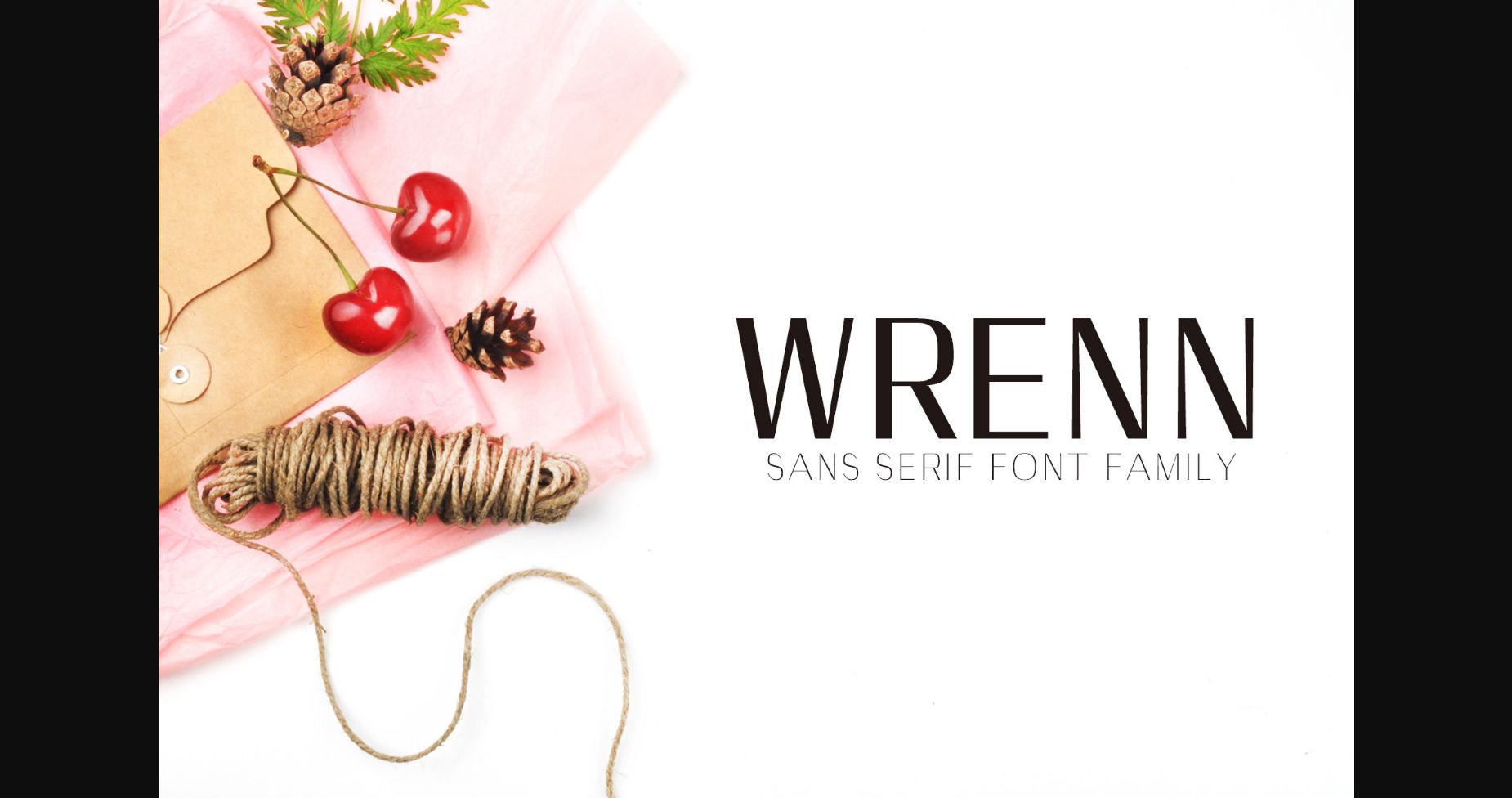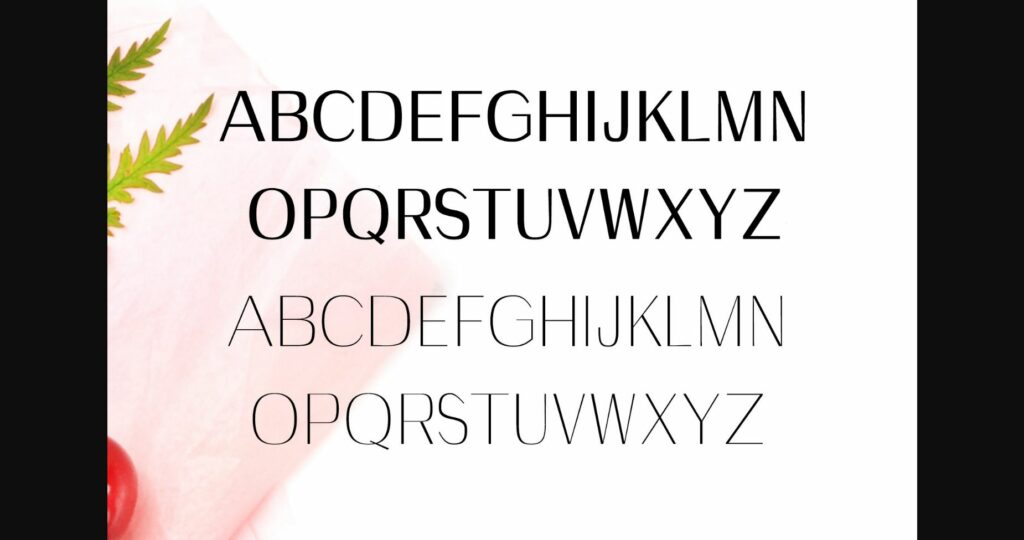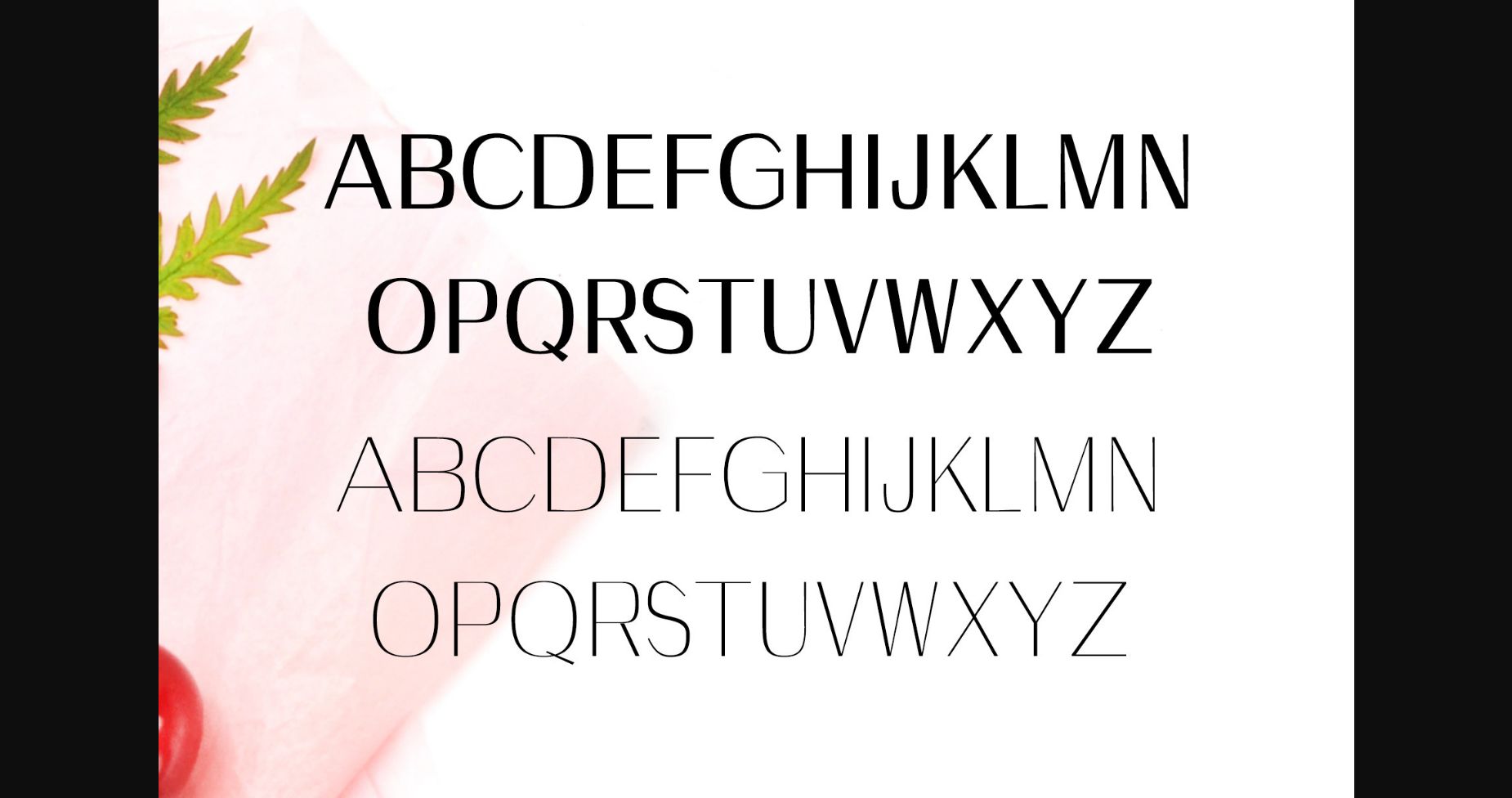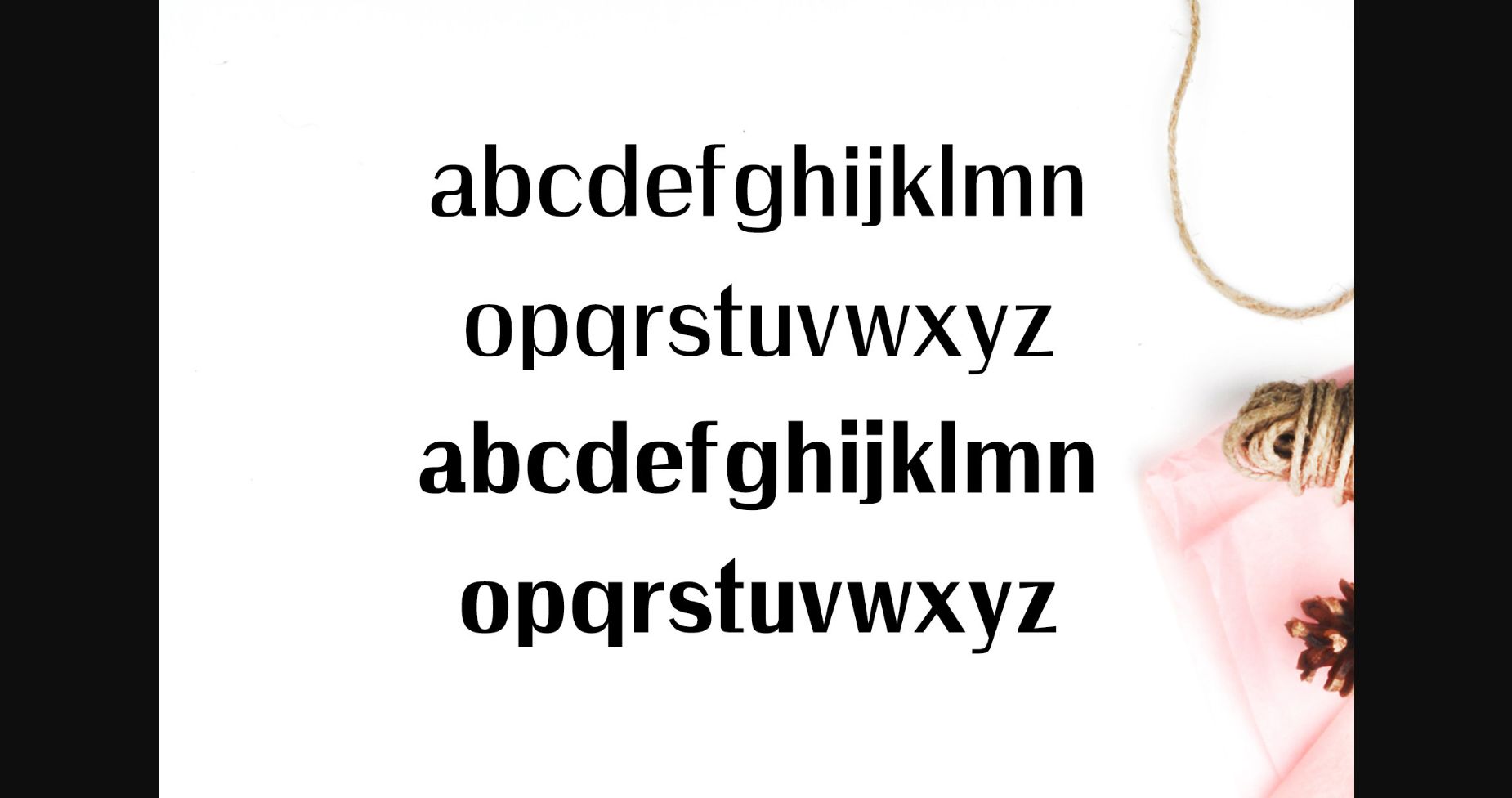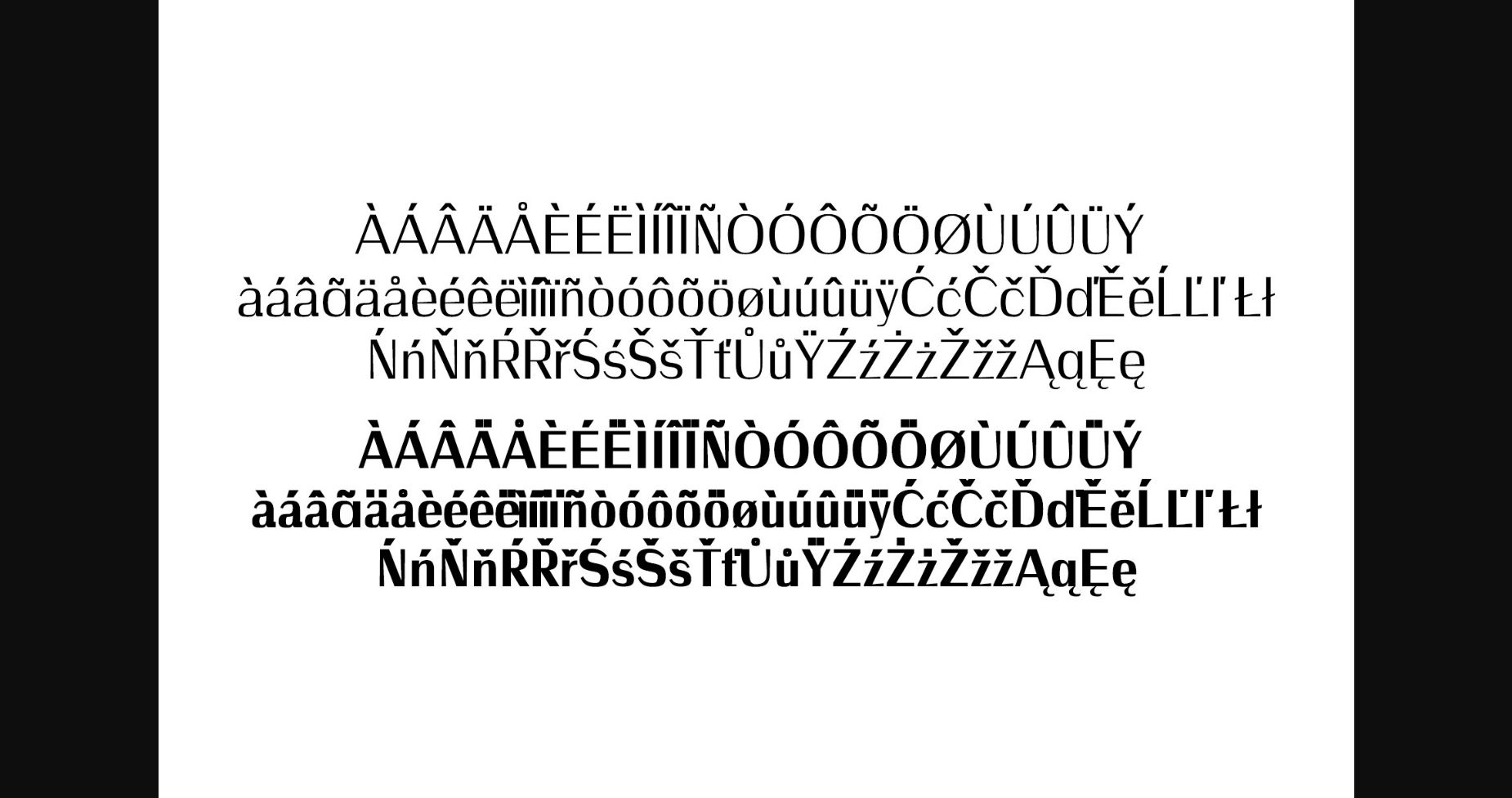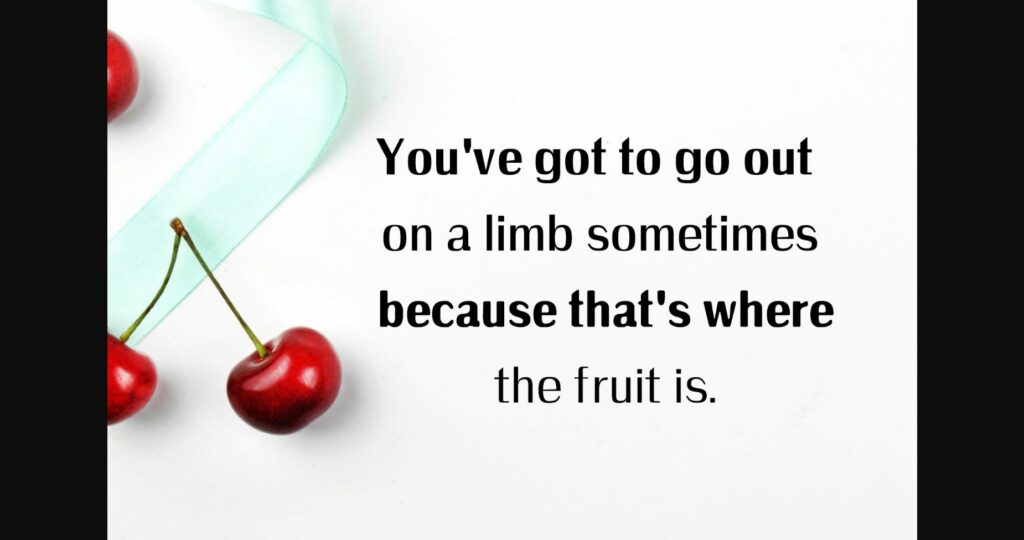
About Wrenn Family Font
Wrenn is a neat and modern sans serif font family. With its sleek characters and minimal style, this typeface is great for book covers, fashion magazines, branding, business cards, banners, and more.